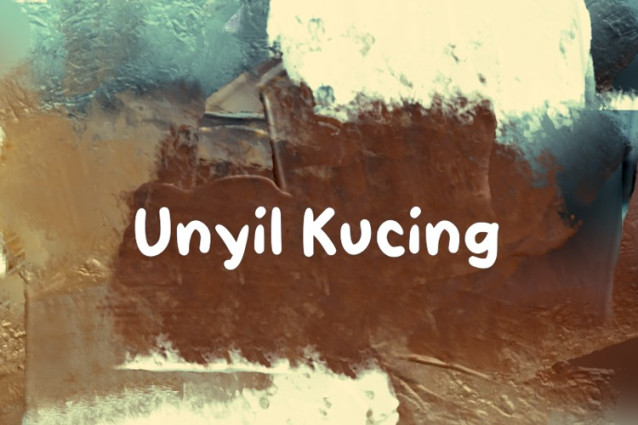
Unyil Kucing Font
Unyil Kucing Font a sweet and friendly handwritten font. Cute and fun, this font is ideal for writing wedding invitations, cards, or any other design that might need a fun touch!